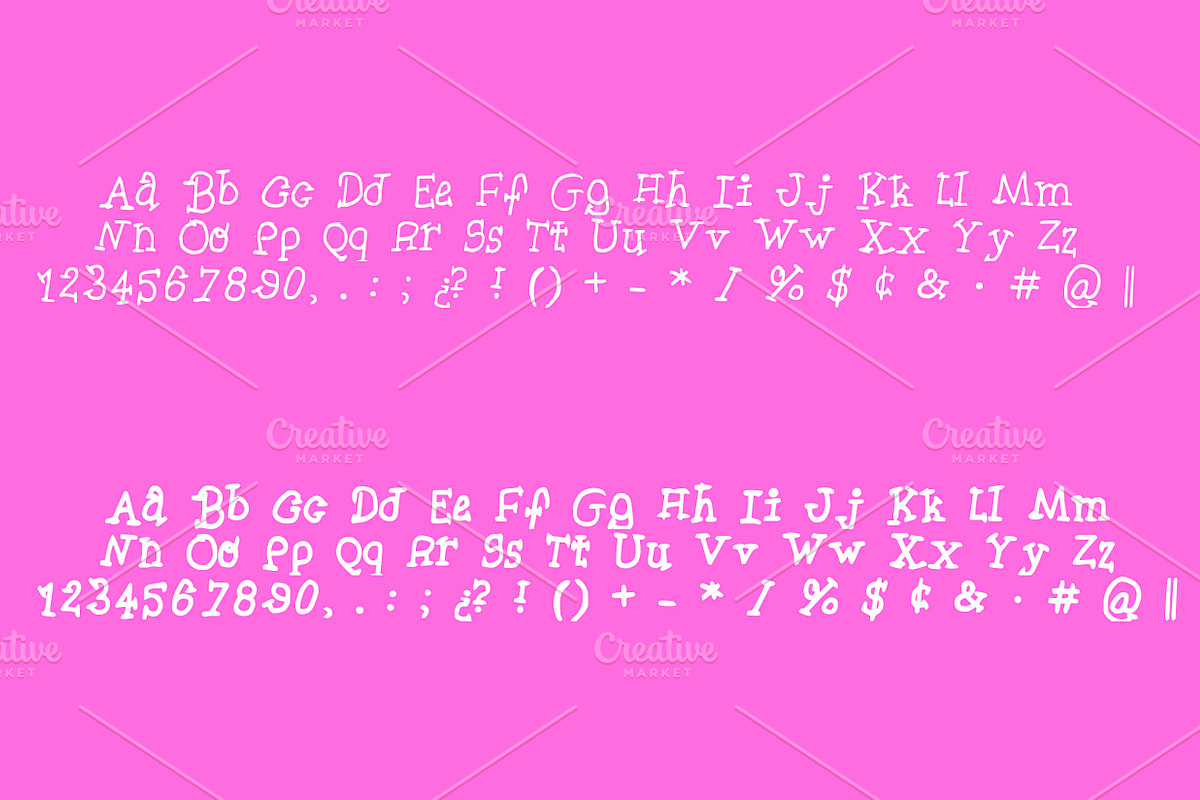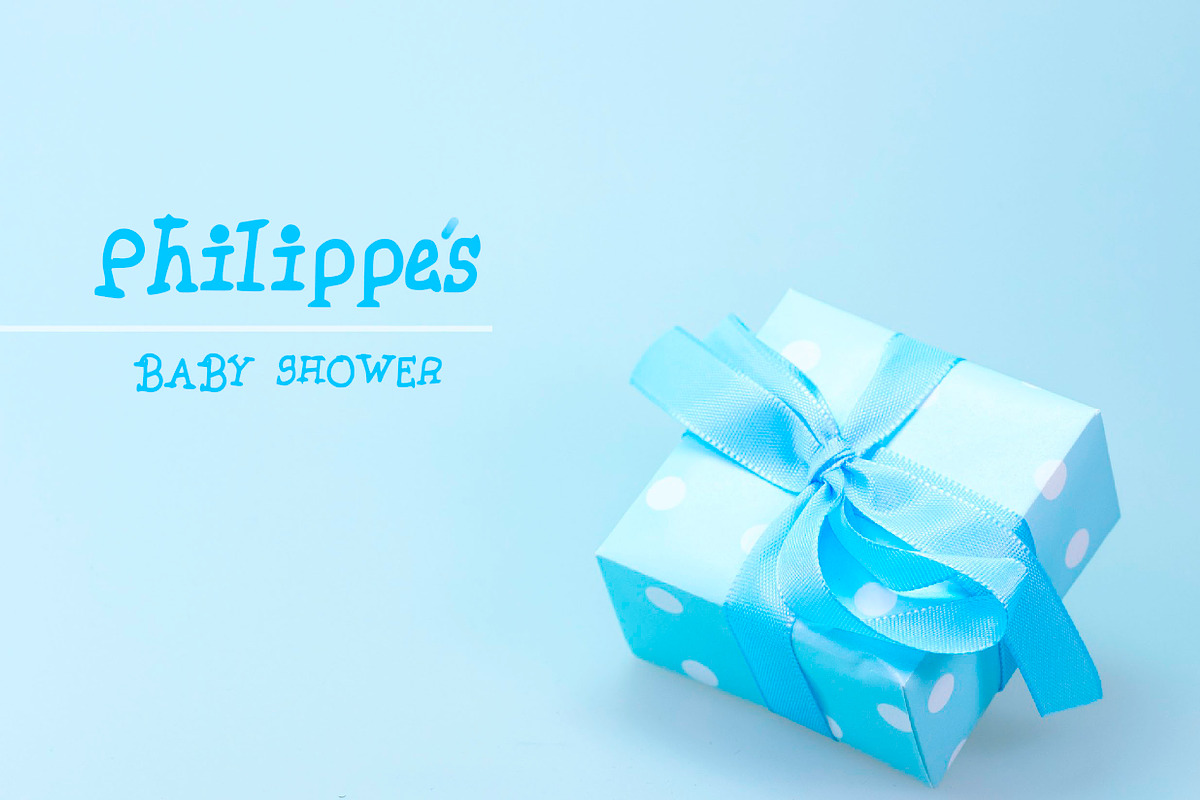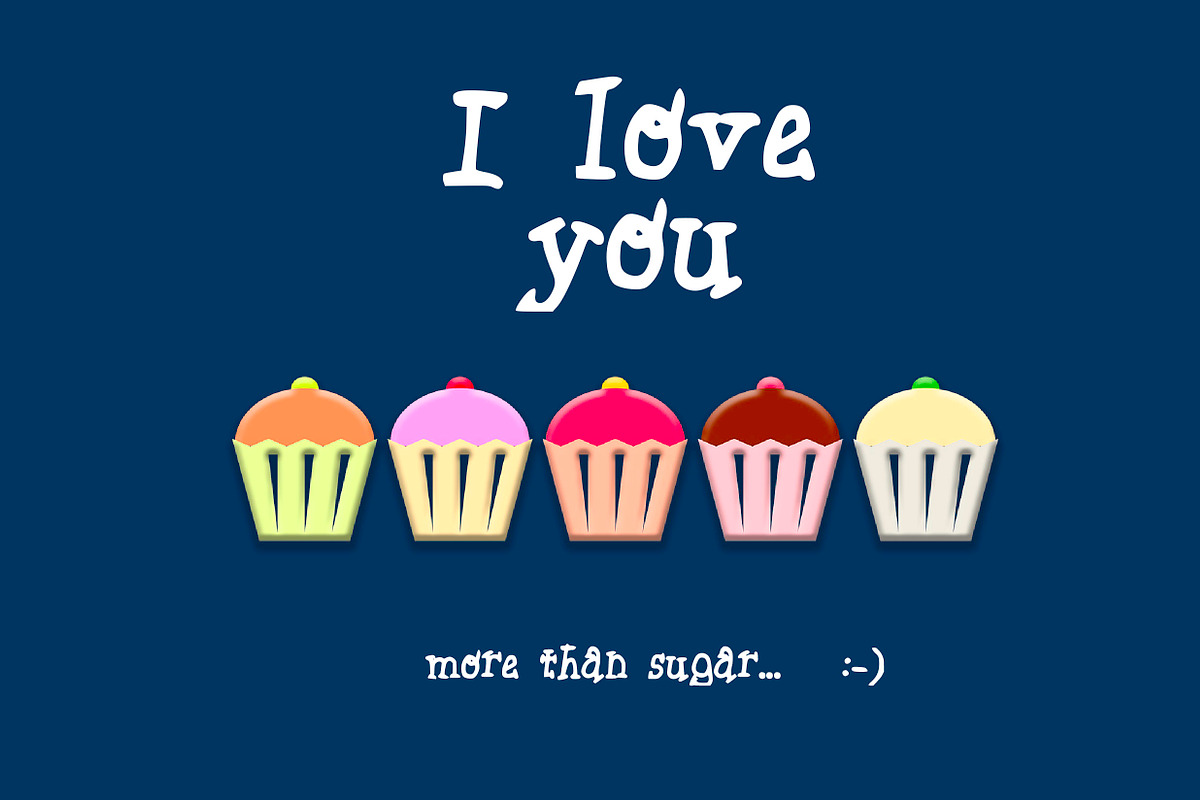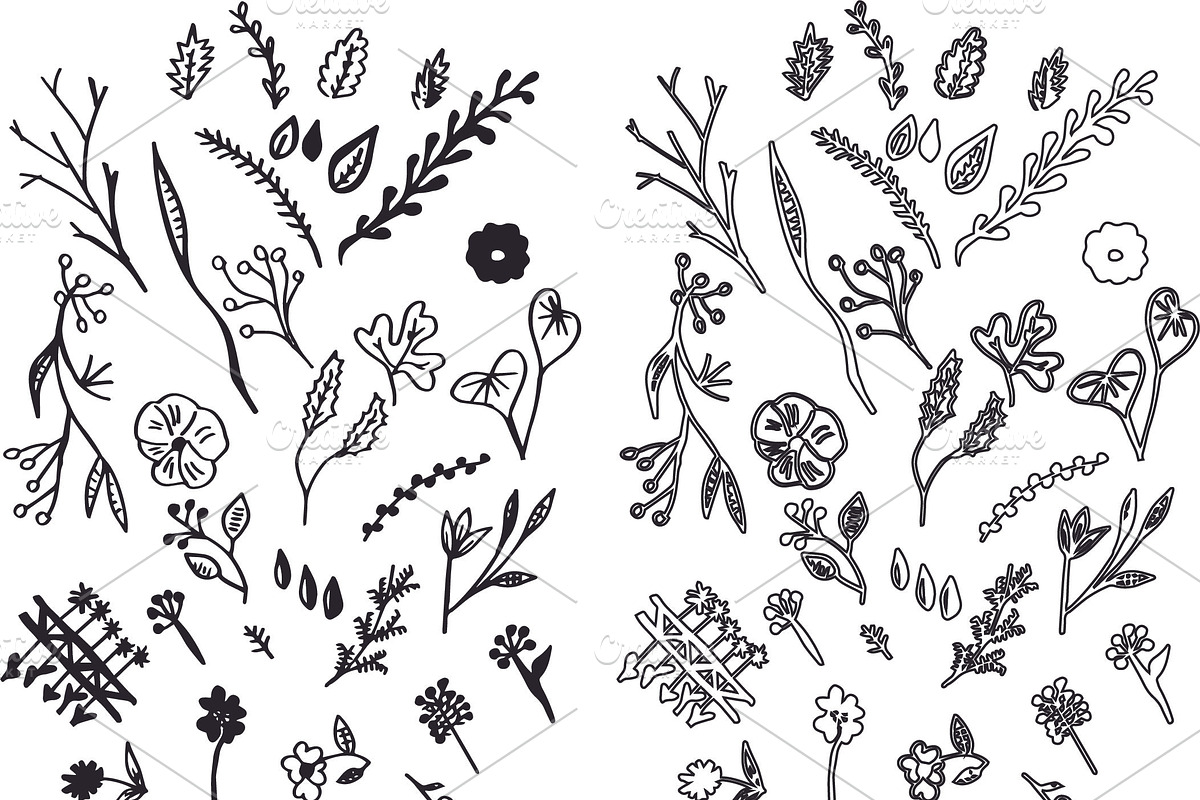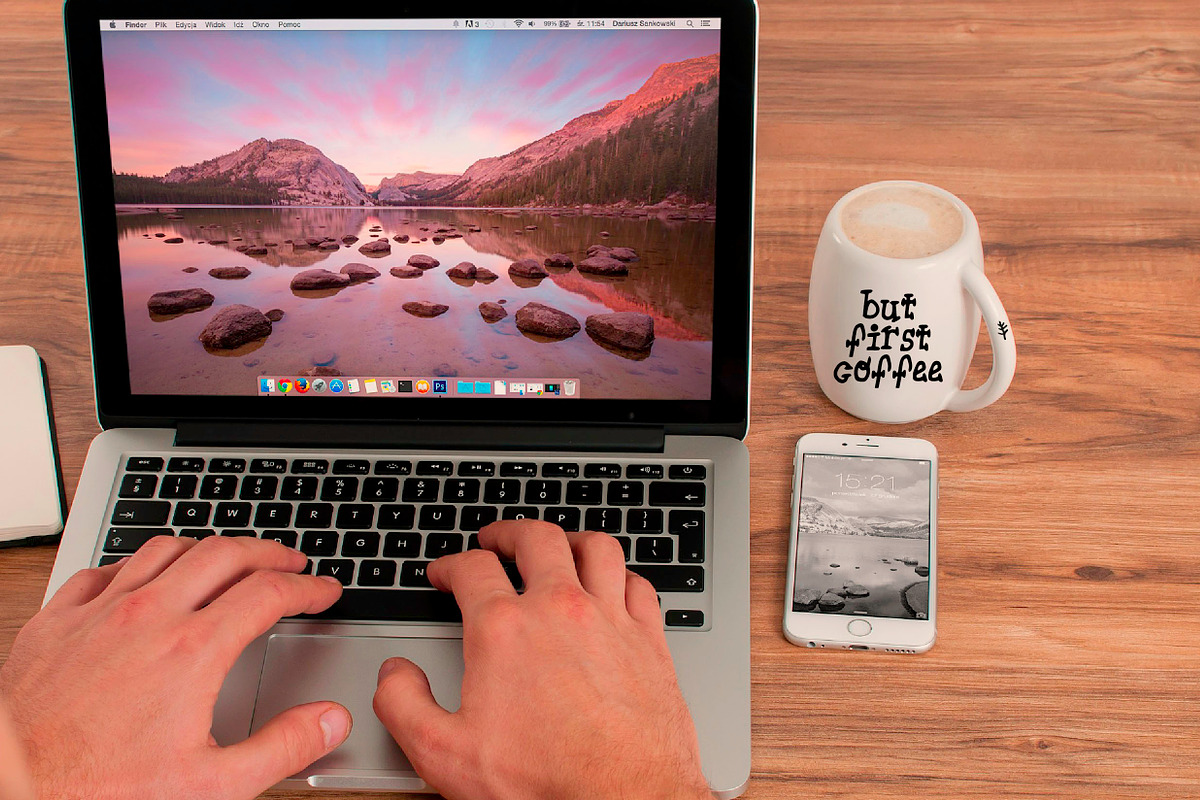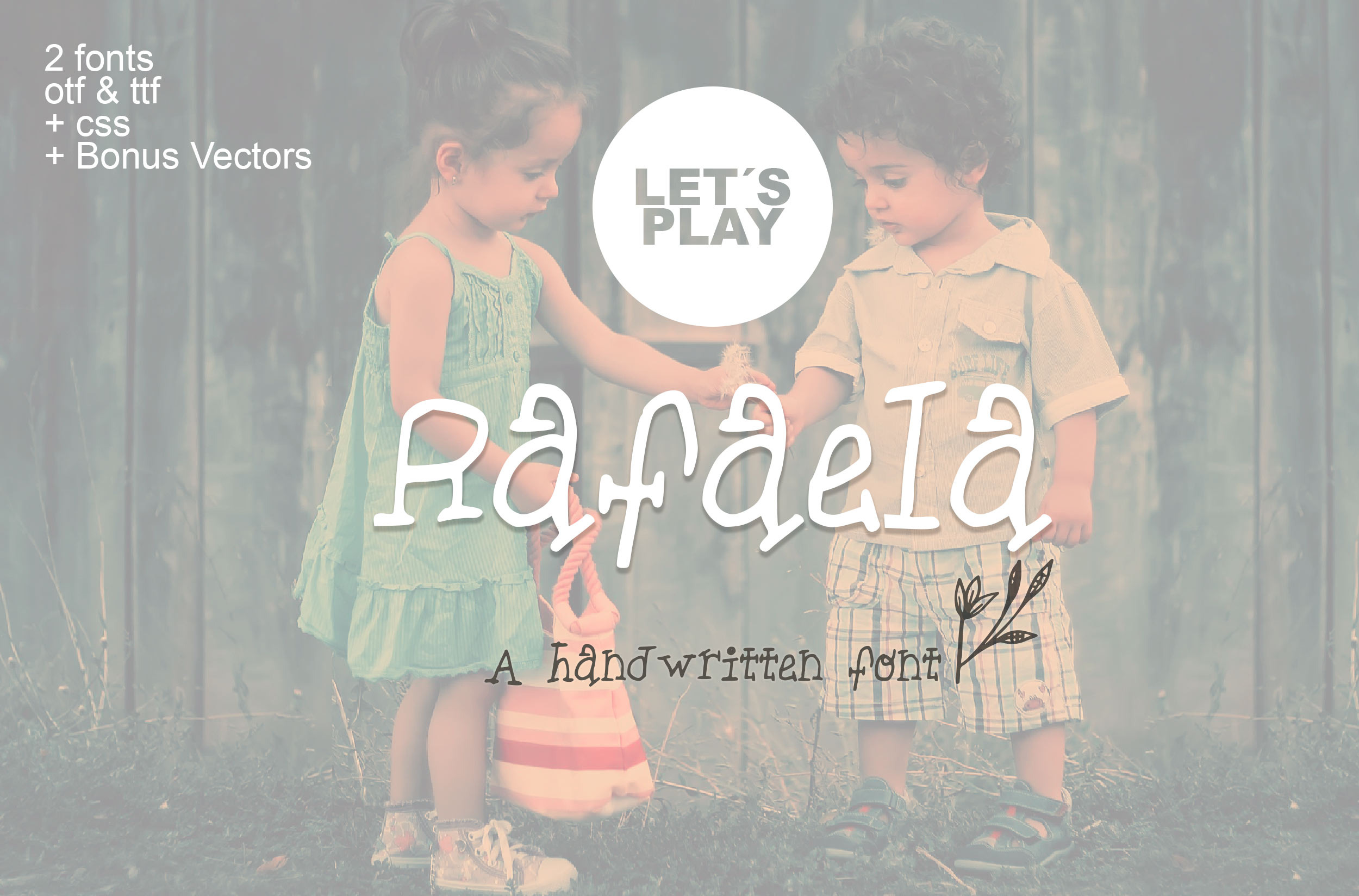
Rafaela a Handwritten font + bonus
With the sweetness of Rafaela a childish font handmade for you you can make incredible things to get in touch with the ones you love. Great font perfect to have that "handwritten" feeling in your visual projects.
Cartoonish look, a kid´s handwritten font, suits perfectly with cards, slogans, cute and cheesy messages.